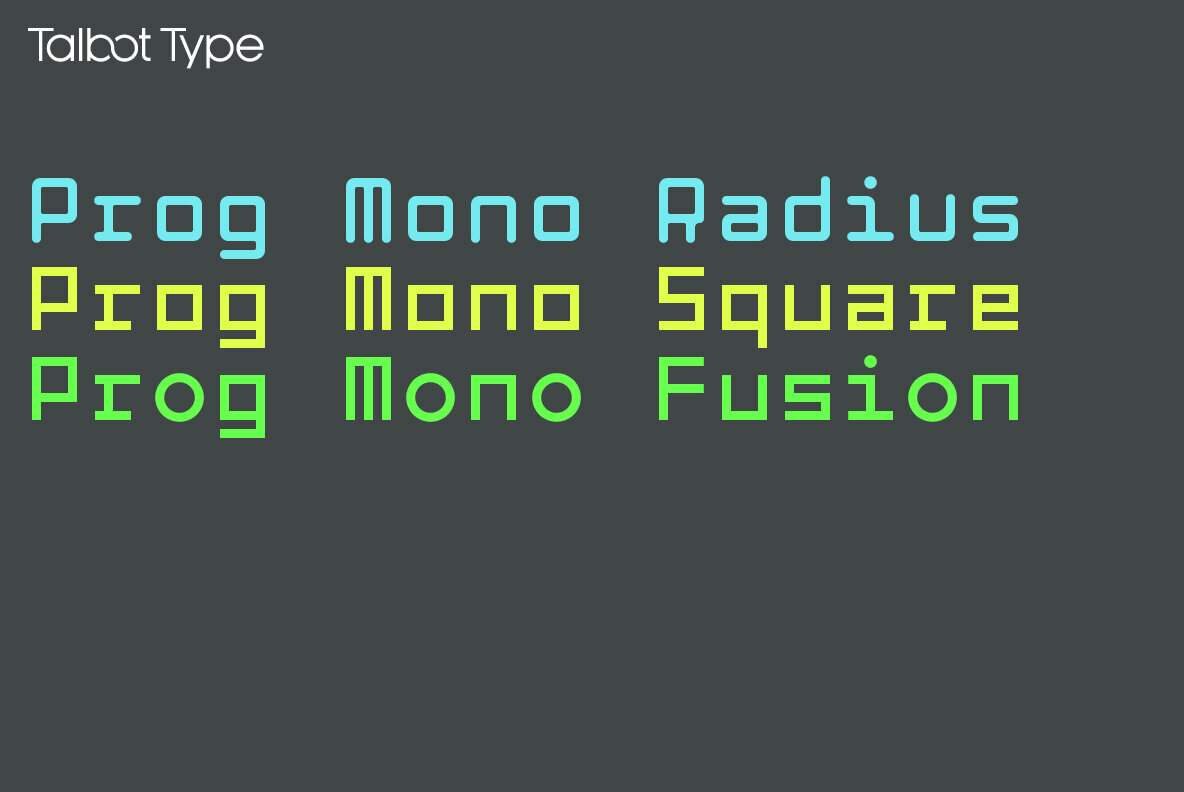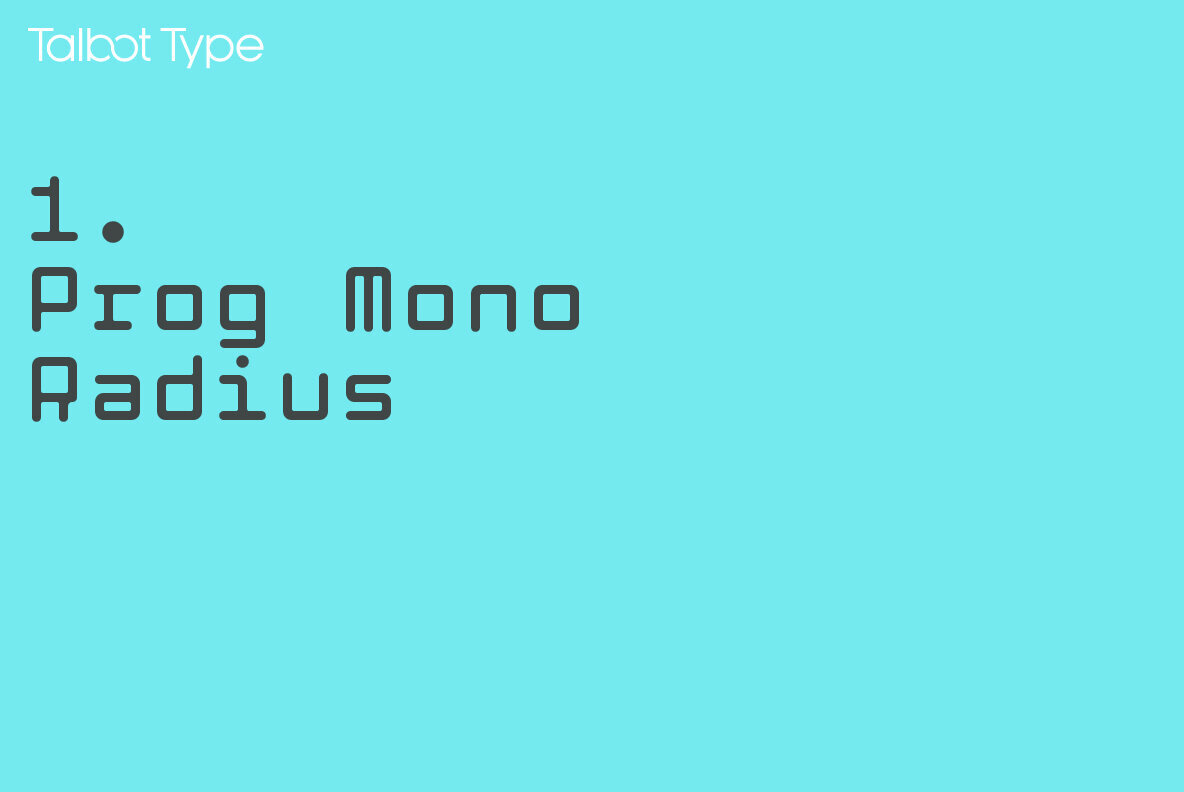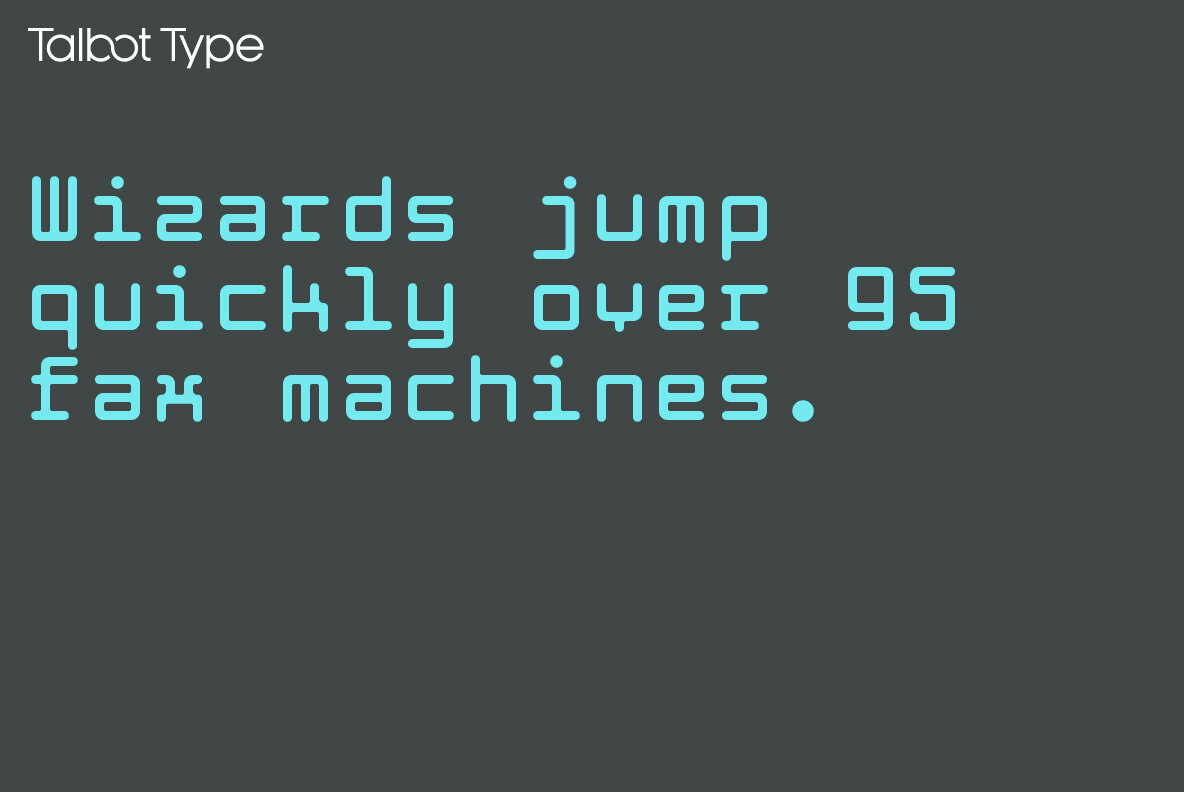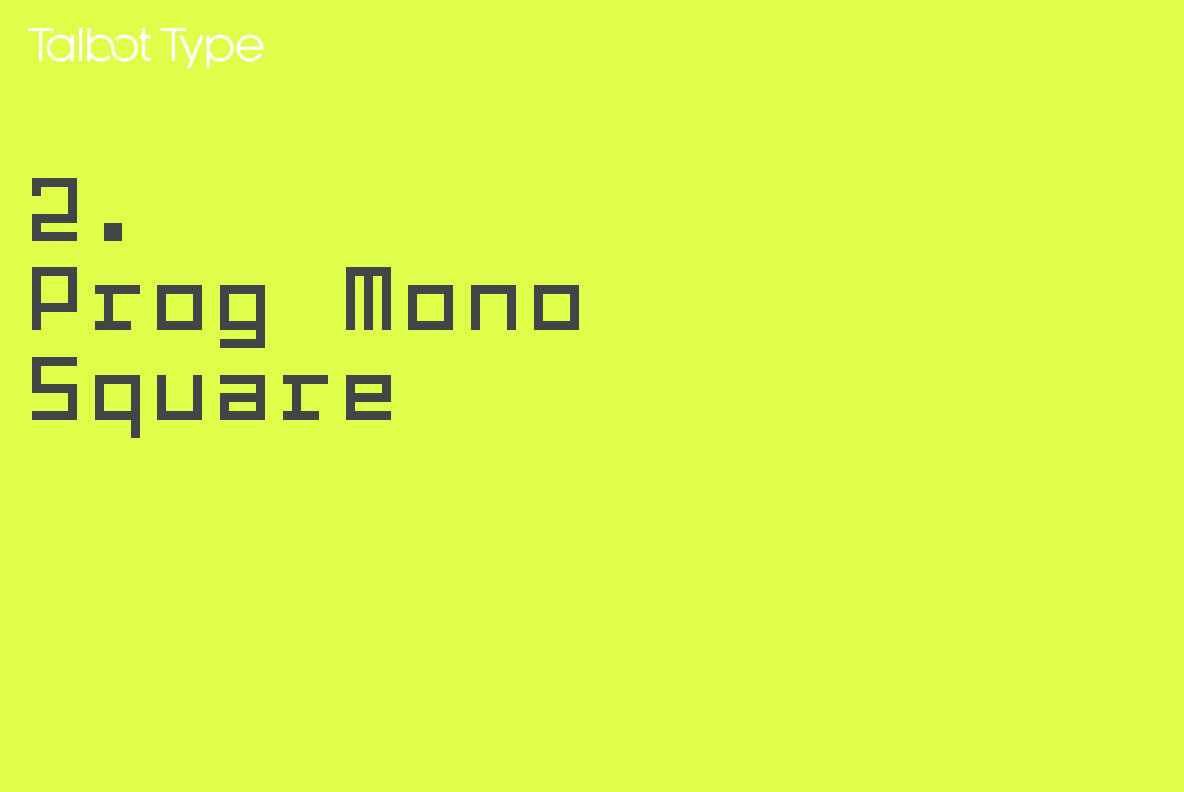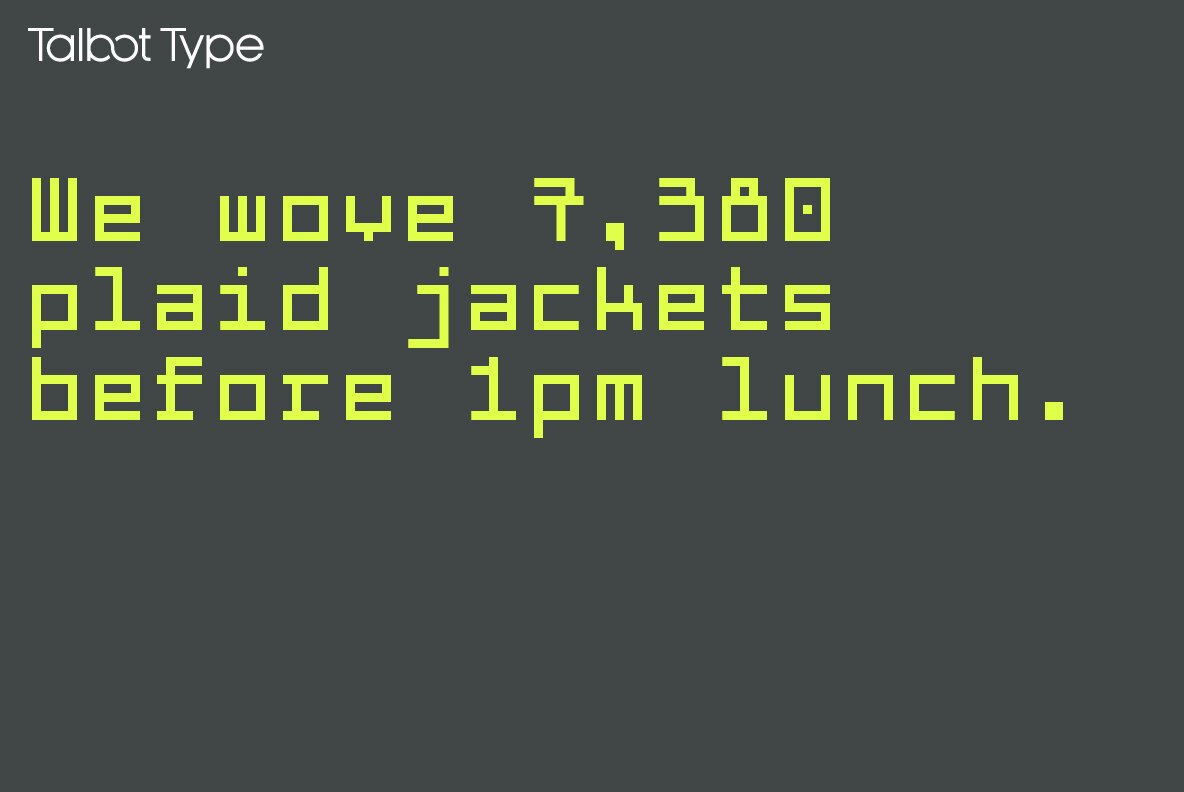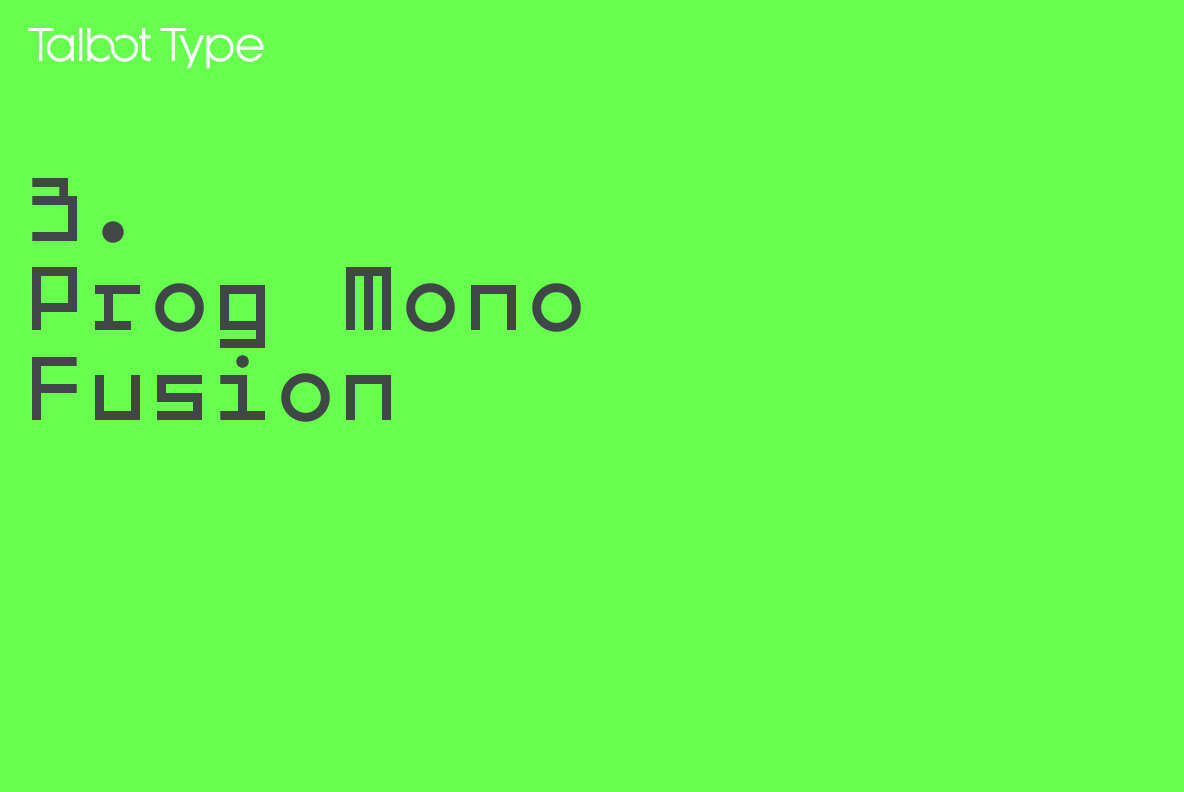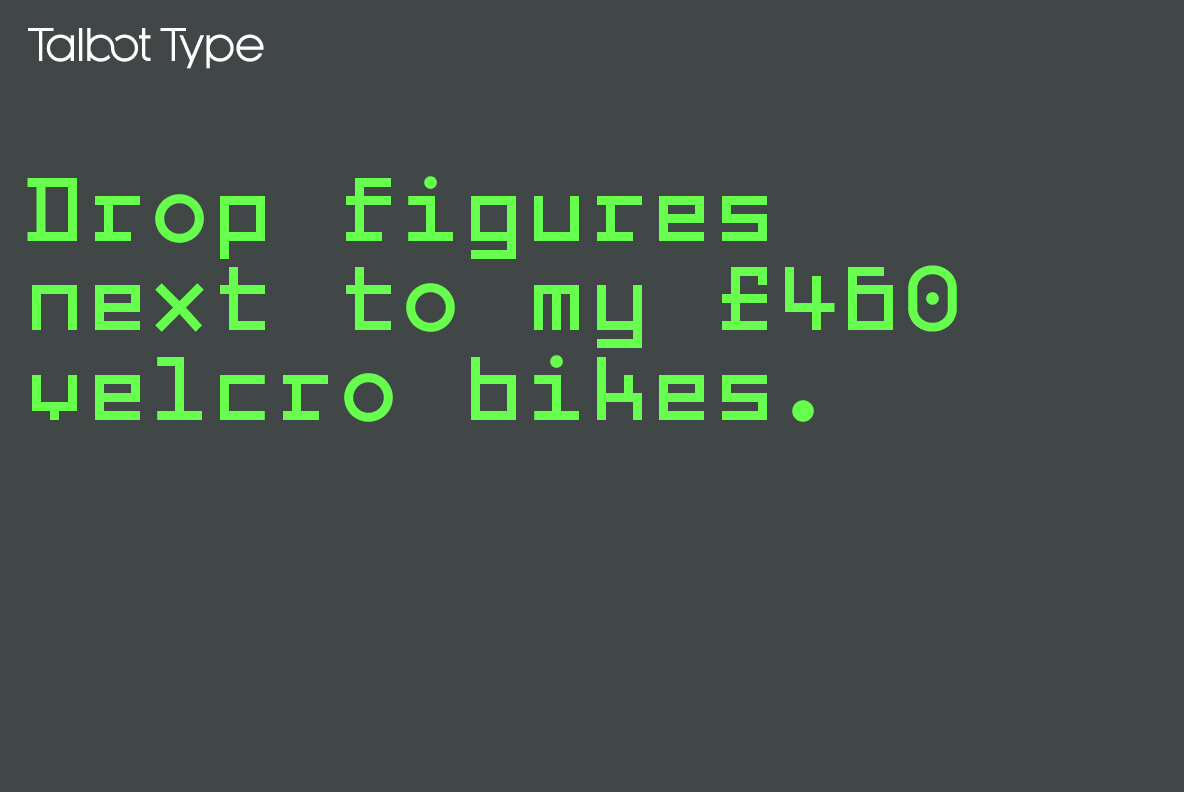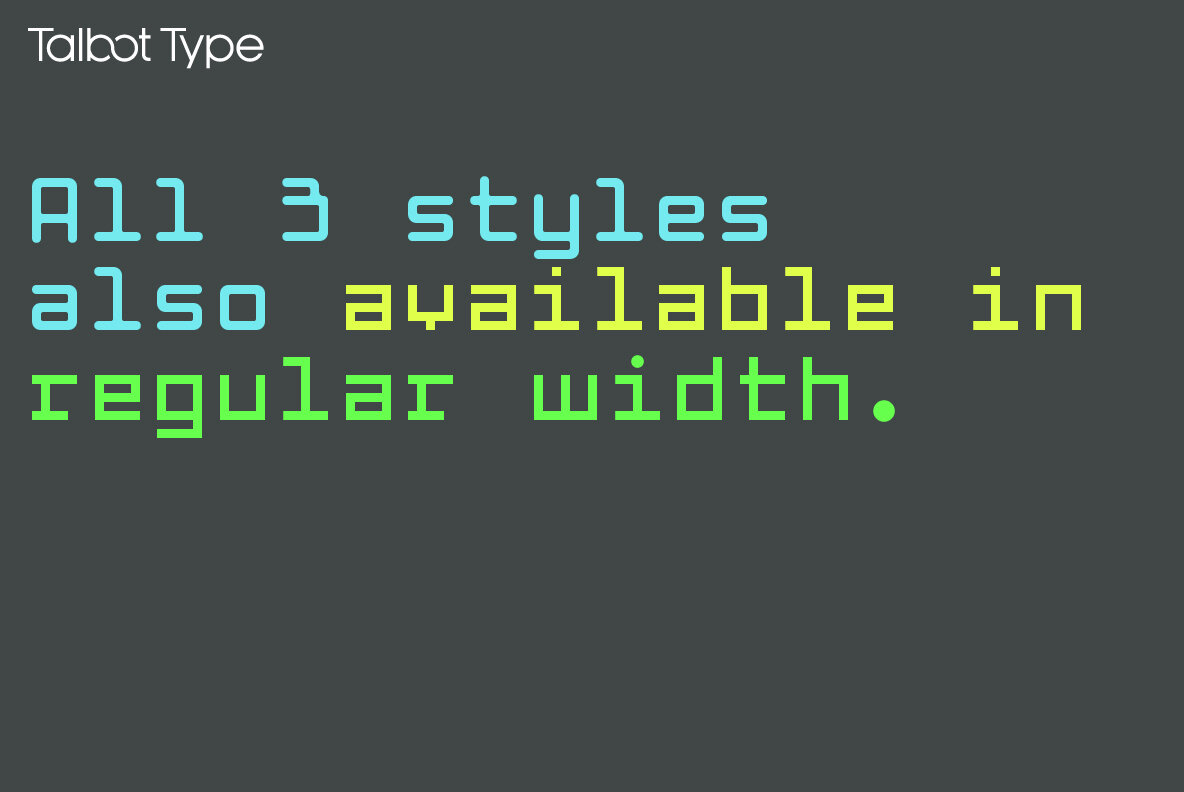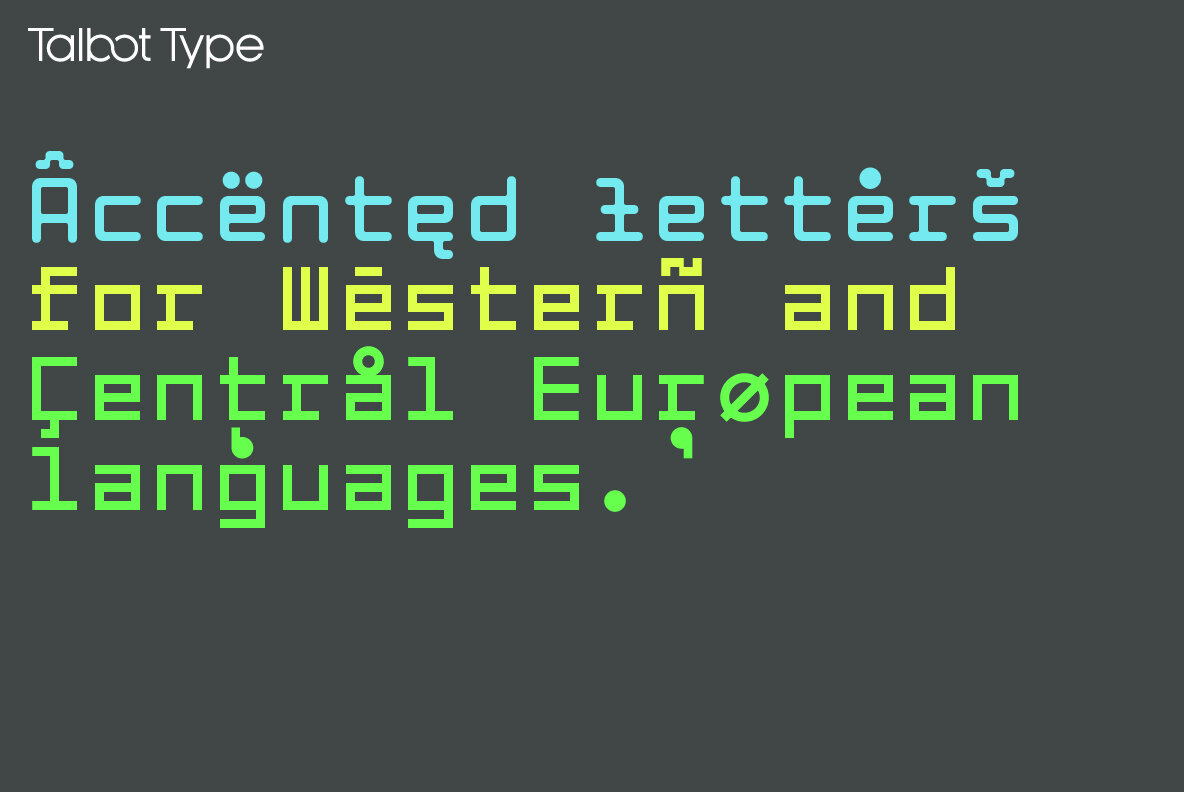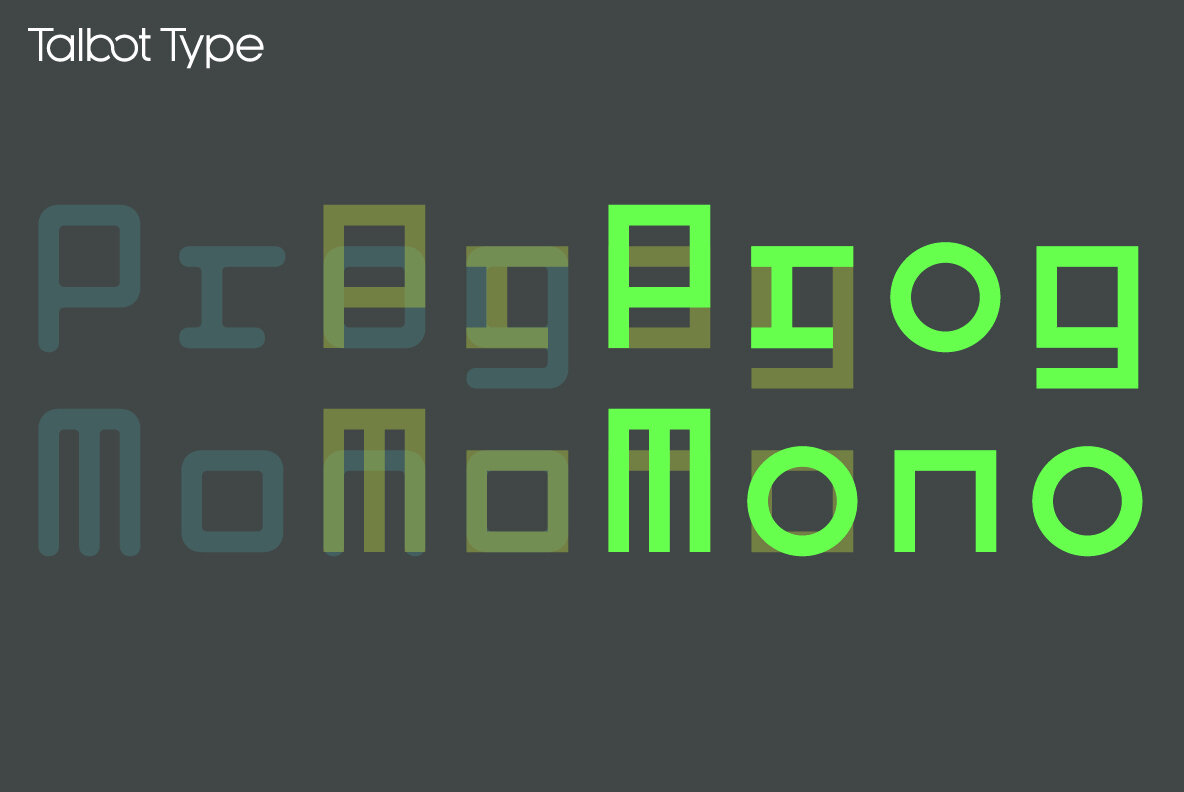
Prog Mono 1
Adrian Talbot established Talbot Type in 2012. His typefaces have been adopted widely, notable clients include the BBC, The British National Health Service and the Victorian State Government in Australia.Talbot Type fonts aspire to be timeless designs, valid now and in the future. They are inspired by...